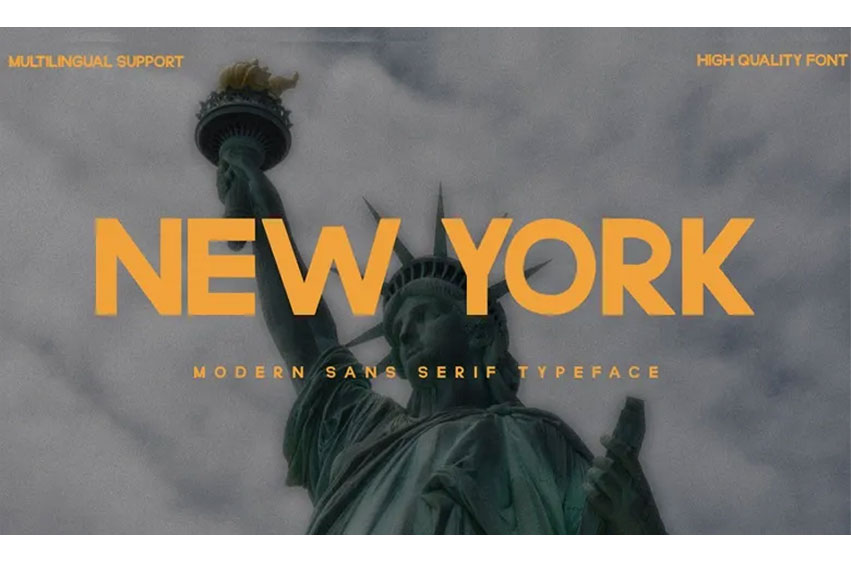
New York Sans Font is a modern sans serif font that gives an exclusive timeless feel that harmonizes classical and contemporary appearance. Using clean geometric forms, it has great readability at any sizes which makes the font appropriate for use as both display and text.
This typeface has a relatively well balanced character set – its curves are soft while angles sharp, thus making Minion an almost perfect all-round type.